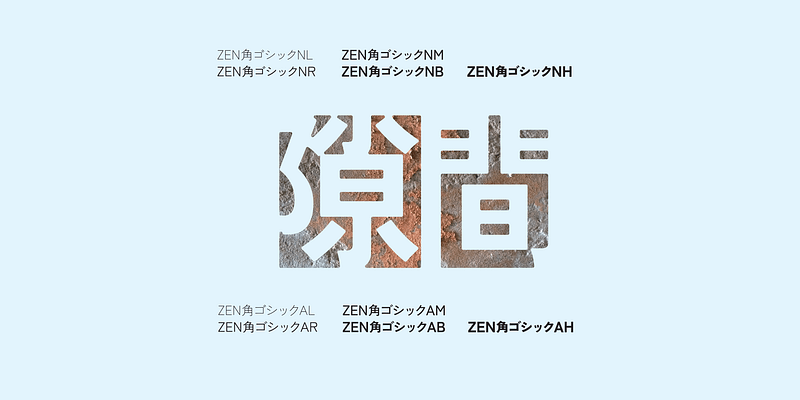
Zen Kaku Gothic
Zen Kaku Gothic N is a basic Japanese san serif (Gothic) family. With this font, you can express fine typesetting without any professional detailed arrangements. Because of the unique yet simple design, it gives naturally high legibility. Easy to use and Zen Kaku Gothic A is a classical yet simple and stylish sans serif family. Highly legible due to orthodox letterform design. Great for various usage, from title to text, and even caption.
Advent Pro is a modern sans-serif typeface that combines geometric forms with humanist characteristics. It is designed for versatility in both web and print applications, making it suitable for a wide range of design projects. Known for its clean lines and readability, Advent Pro is often used in contemporary branding and editorial design.
Afacad is a modern sans-serif typeface characterized by its geometric shapes and clean lines. It is designed for versatility, making it suitable for both display and text use. The font is known for its legibility and contemporary aesthetic, often used in branding and digital applications.
Agbalumo is a display typeface designed to capture the beauty of African languages. Its curvy, chunky, and compact forms make it suitable for headlines and branding, reflecting a modern aesthetic while honoring cultural heritage.
Agdasima is a typeface designed to enhance document compliance with the ISO/IEC 29500 standard. It serves as a fallback for Agency FB, aiming to minimize text reflow in Office documents. This font is particularly useful in environments where document fidelity is crucial.